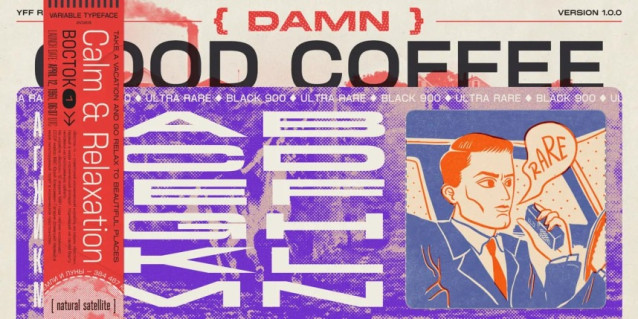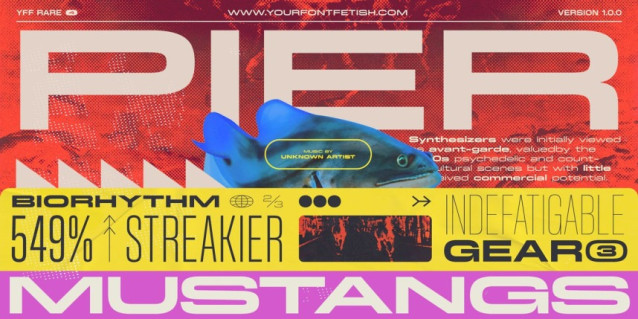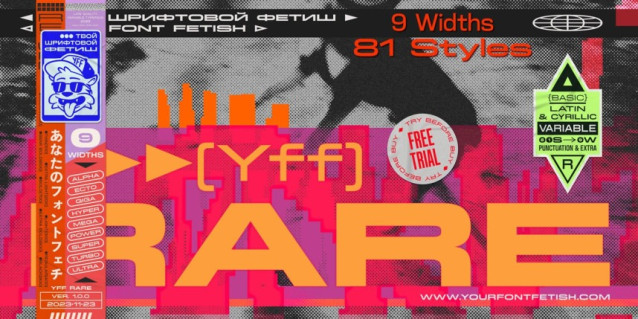
YFF Rare Font
YFF Rare Font is a versatile multi-width variable typeface, based on typefaces from French newspapers of the late 19th century and foundry catalogs of the early 20th century.
A wide range of styles from ultra condensed to ultra expanded allows you to pick the right parameters for your design projects. The typeface is ideal for logos both in packaging and in digital designs. It is also suitable for user interface designs, posters, magazine headlines, movie titles and can easily become the face of your brand.